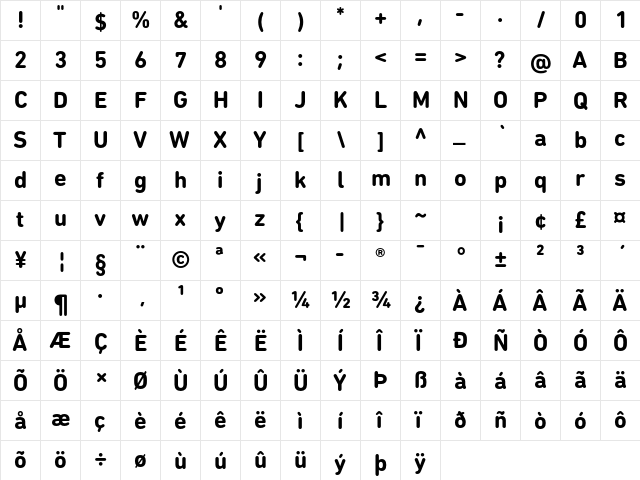
DIN Next Rounded LT Pro Bold Font Preview
| Foundry | Linotype GmbH |
| Designer | Linotype Design Studio |
Design Context for DIN Next Rounded LT Pro Typeface
DIN Next Rounded LT Pro uses gentle rounded endings to create a warm, inviting typographic personality — less corporate than geometric sans, more refined than playful display fonts. The heavy weight commands attention and anchors typographic hierarchies.
A natural fit for tech startups, health and wellness brands, children's products, and friendly consumer apps.
Font Pairing: Pairs well with a rounded or humanist sans for body copy, maintaining the friendly tone without relying on DIN Next Rounded LT Pro to carry extended reading.
Pro Tip: Pair DIN Next Rounded LT Pro with a geometric sans for a balanced system — the rounded softness works as a warm counterpoint to harder-edged companions.